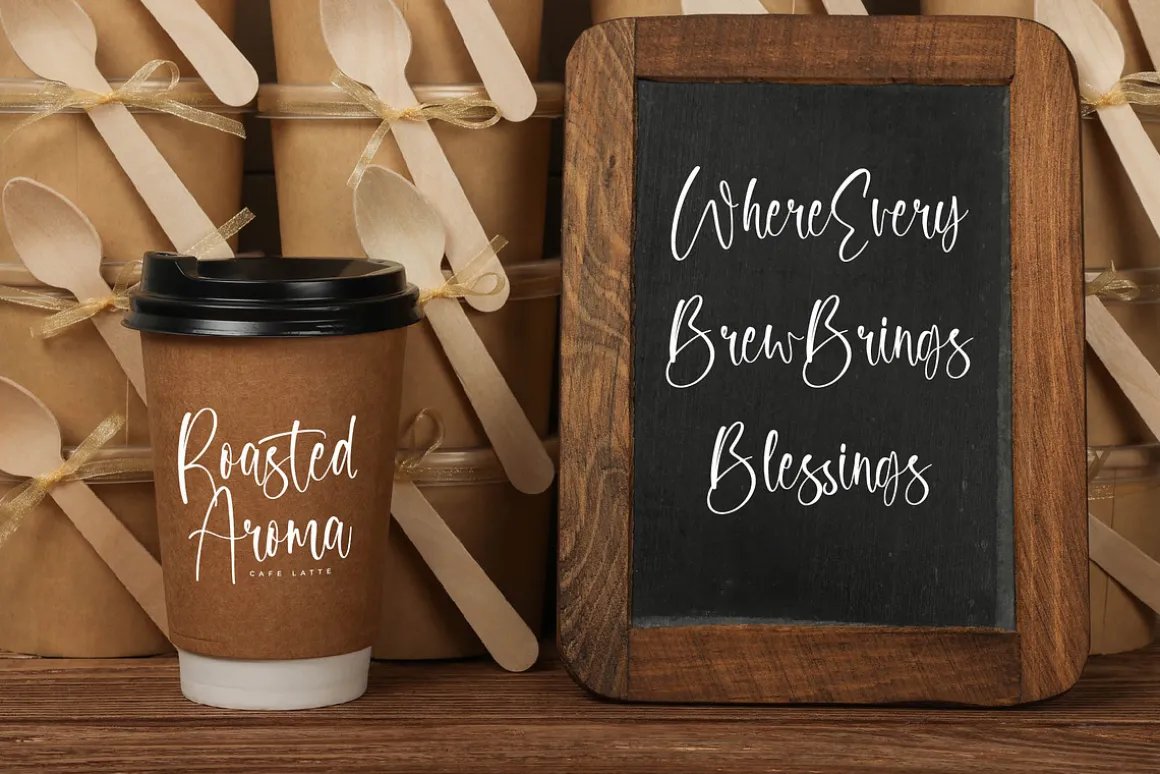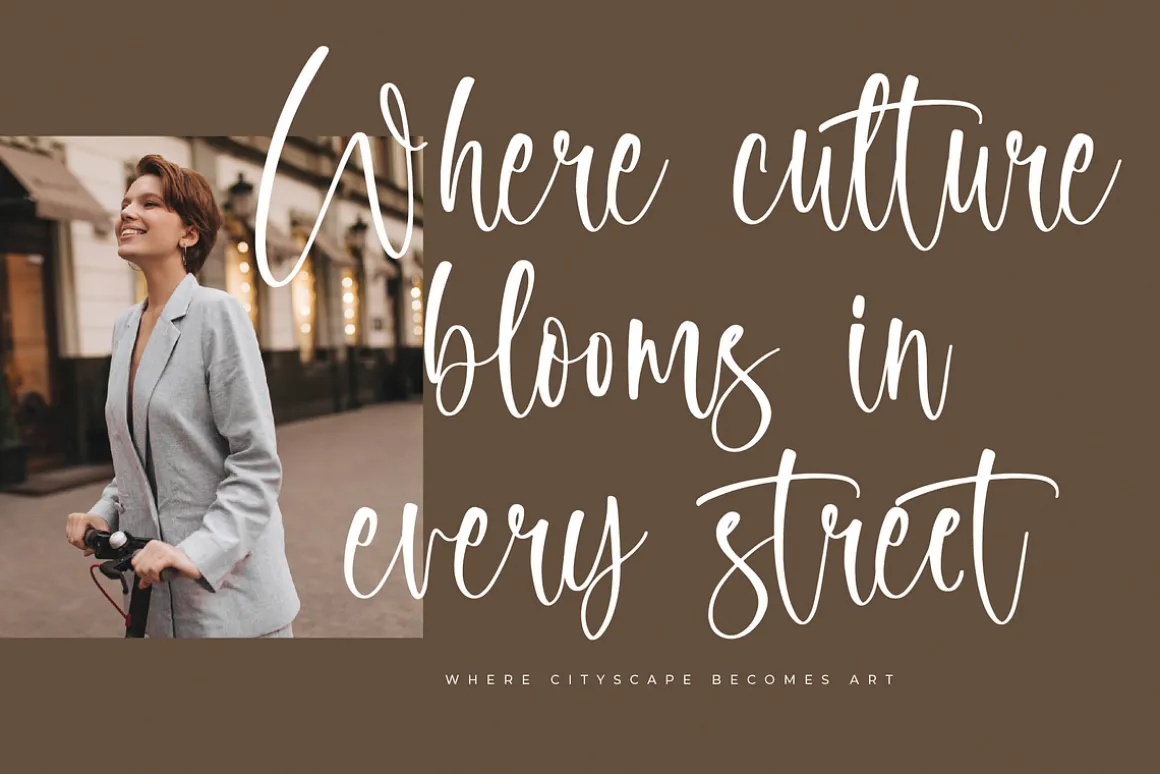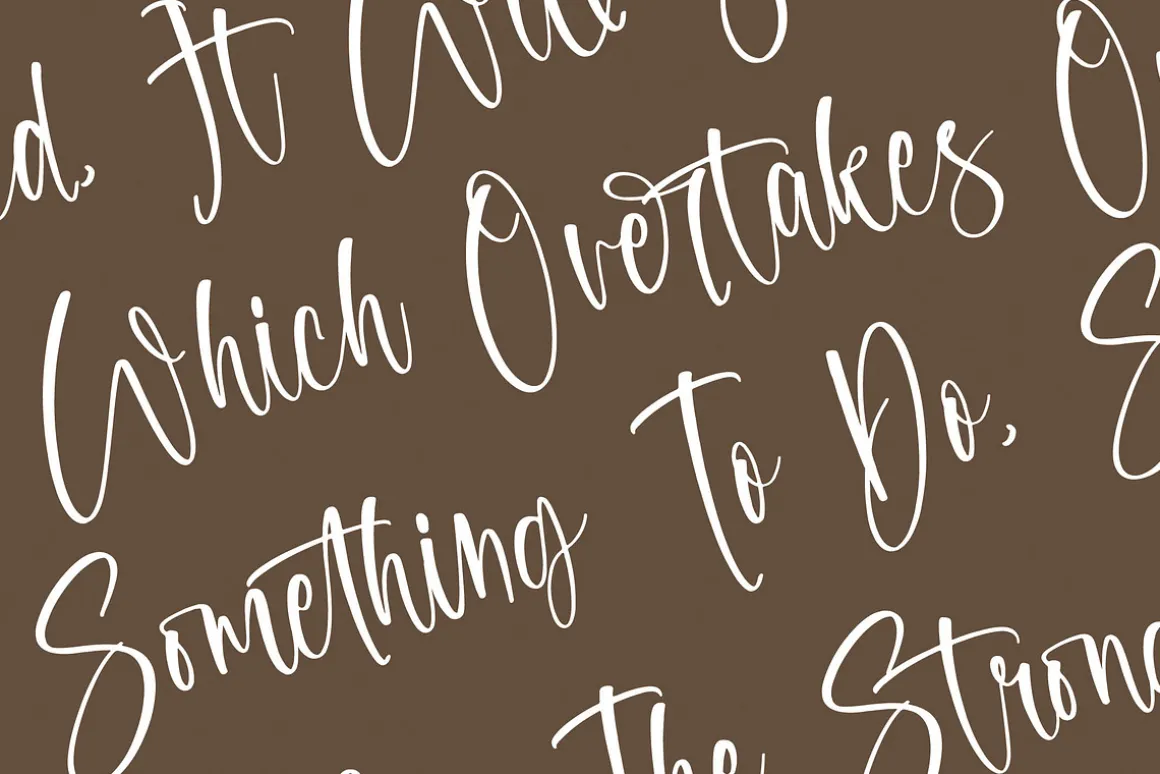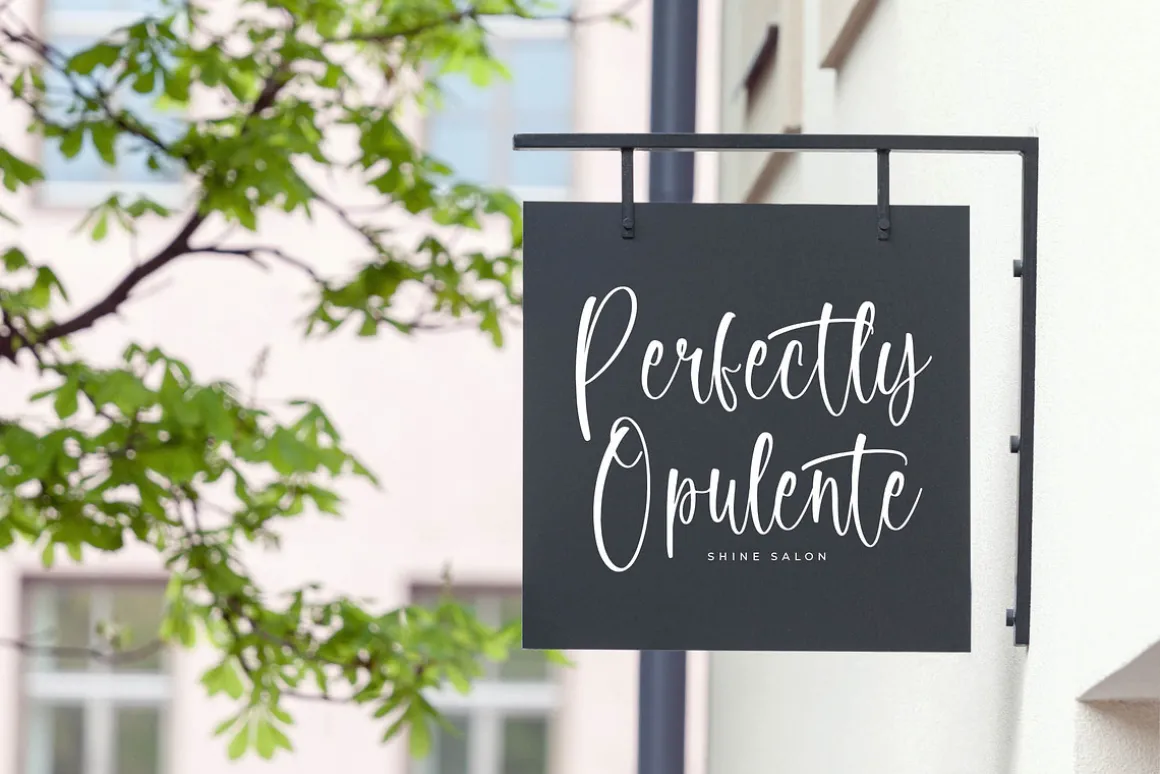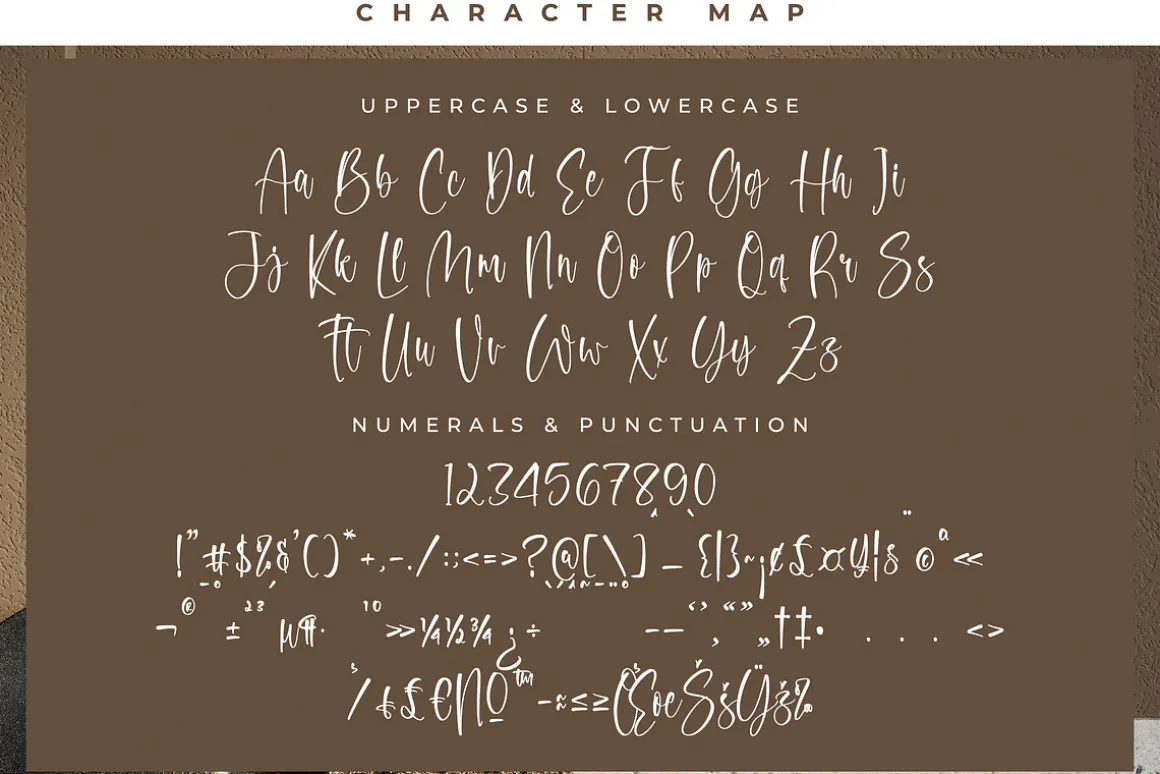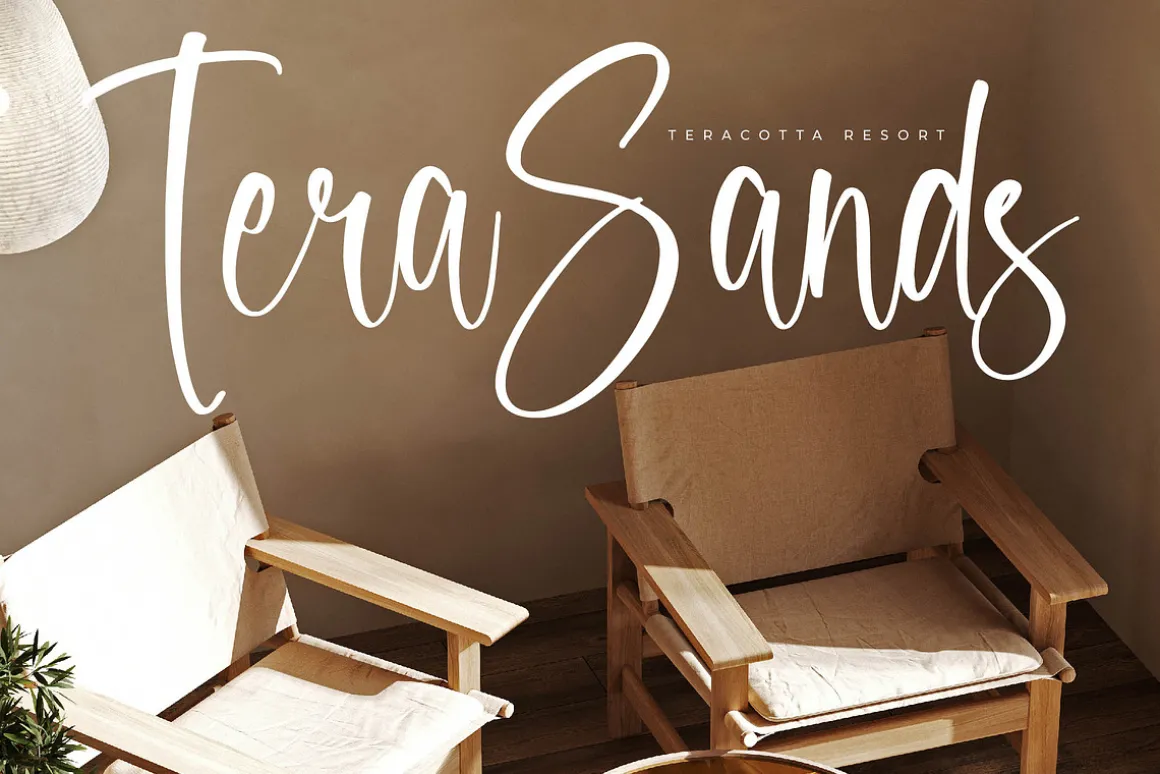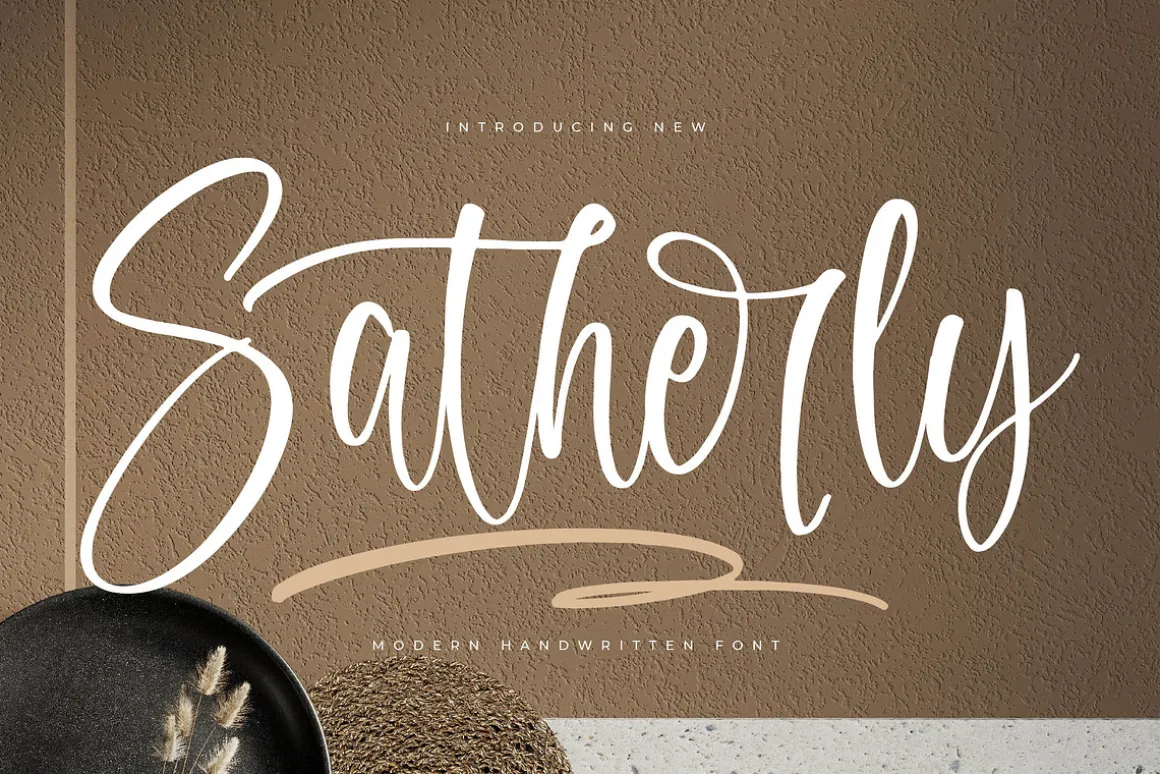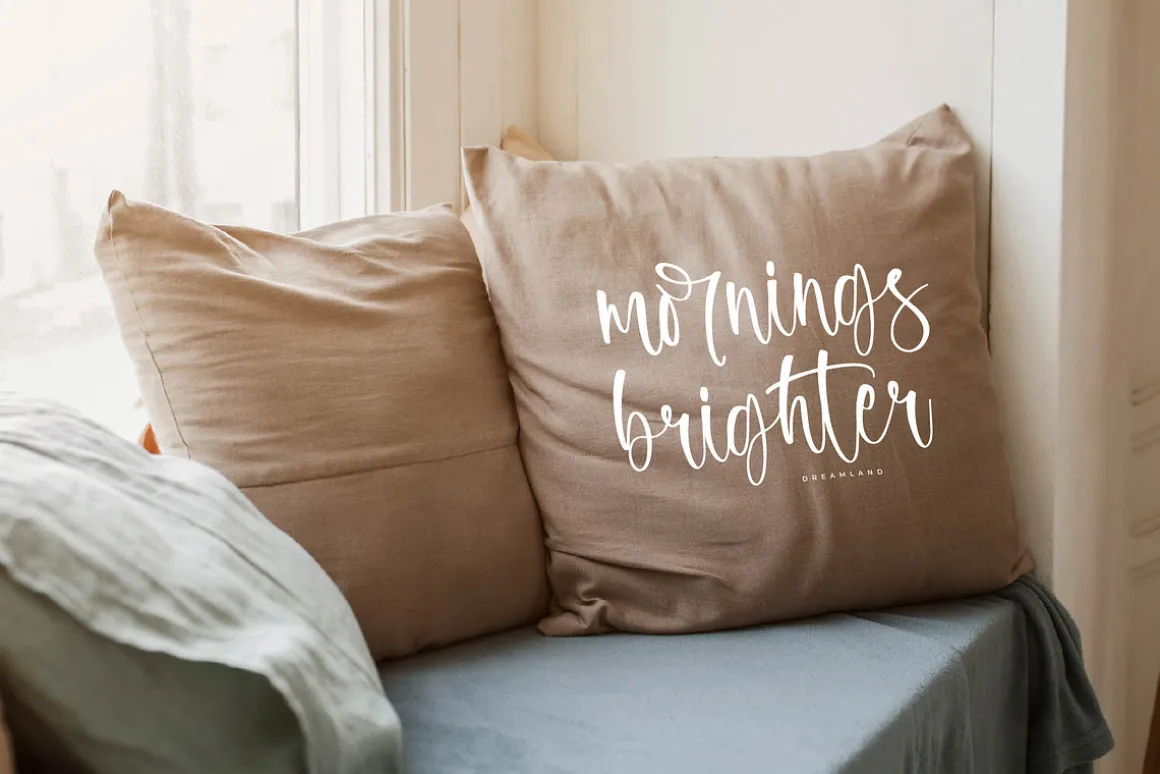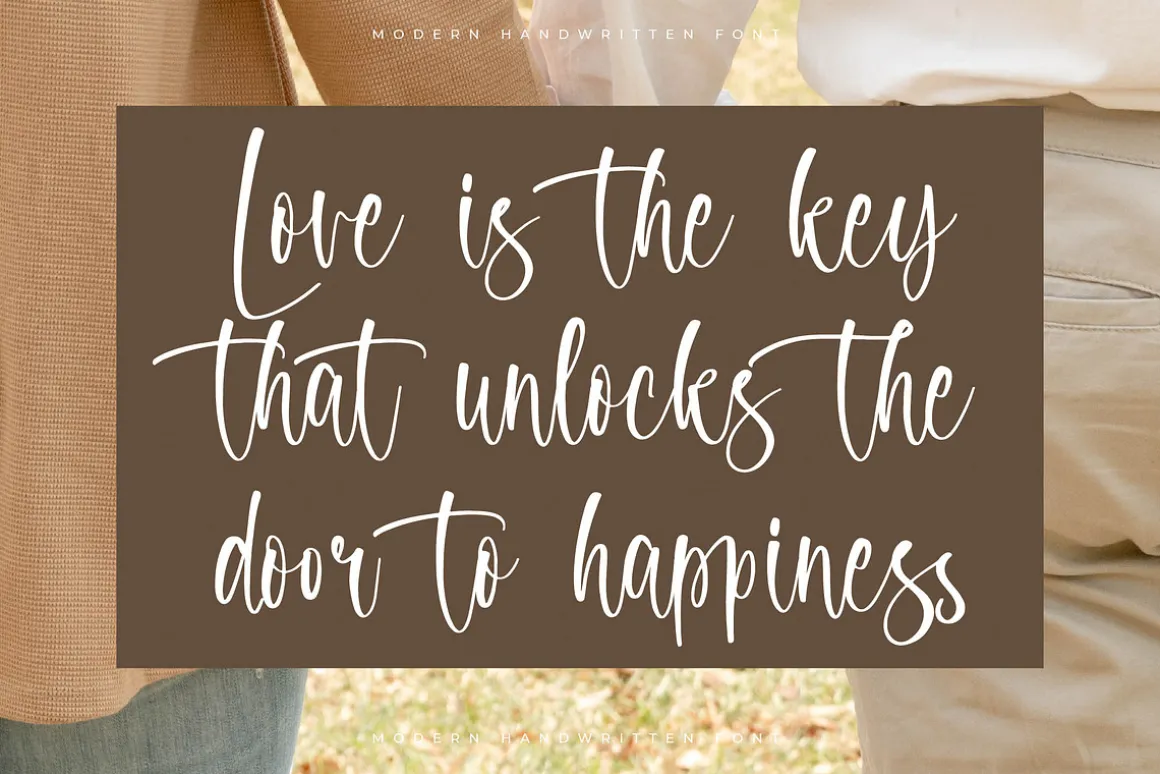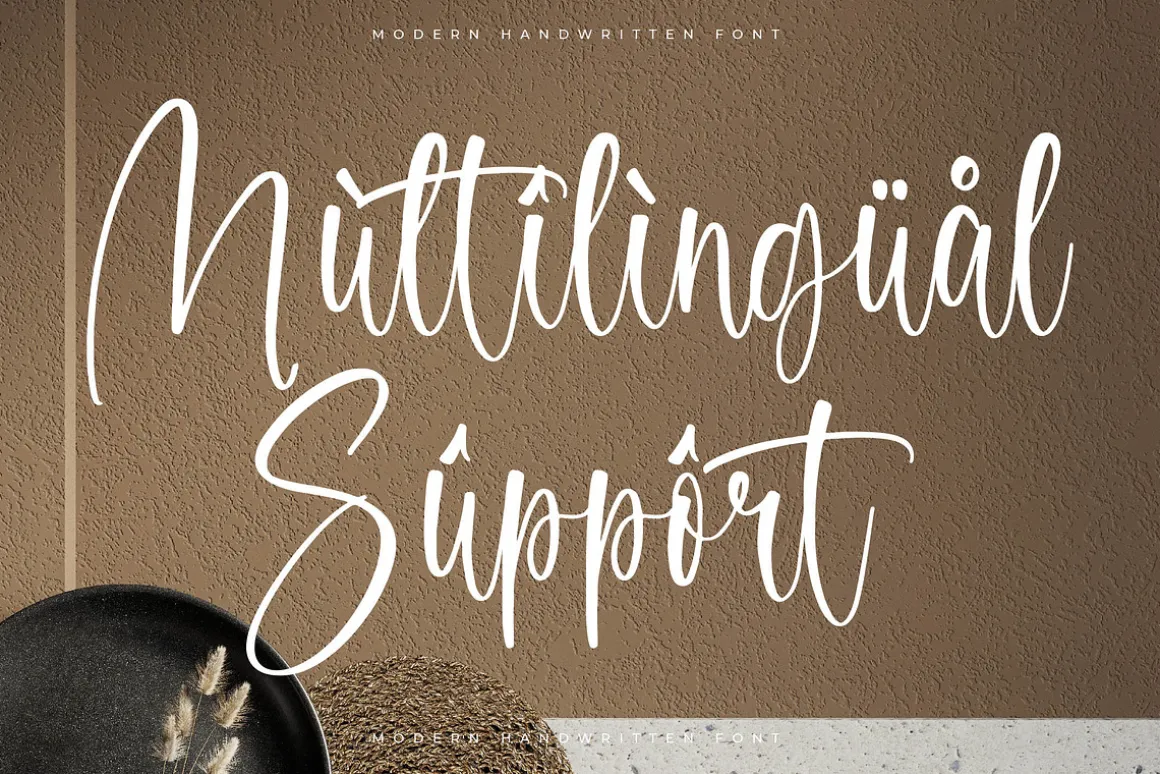
Satherly – Modern Handwritten Font , from Letterena, is a Luxury Script font, suitable for any projects such as: logos, branding projects, homeware designs, product packaging, mugs, quotes, posters, shopping bags, t-shirts, book covers, name card, invitation cards, greeting cards, label, photography, watermark, special events, and all your other luxury and beautiful projects that need a Luxury Script taste.
- Numerals
- Punctuations (OpenType Standard)
- Accents (Multilingual Characters)
- Ligatures and Alternative Style Stylistic Set